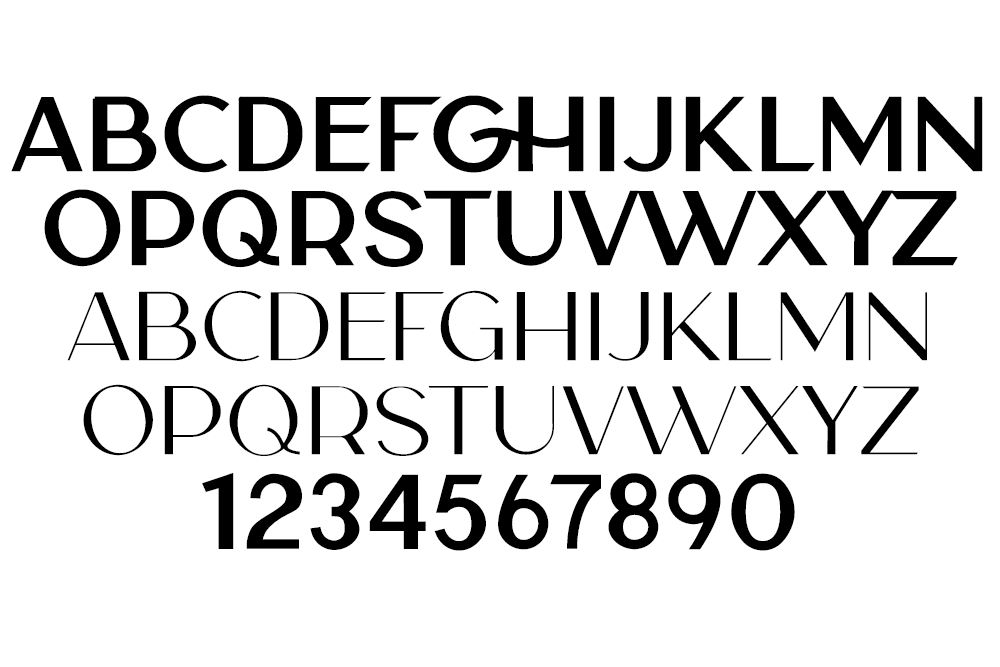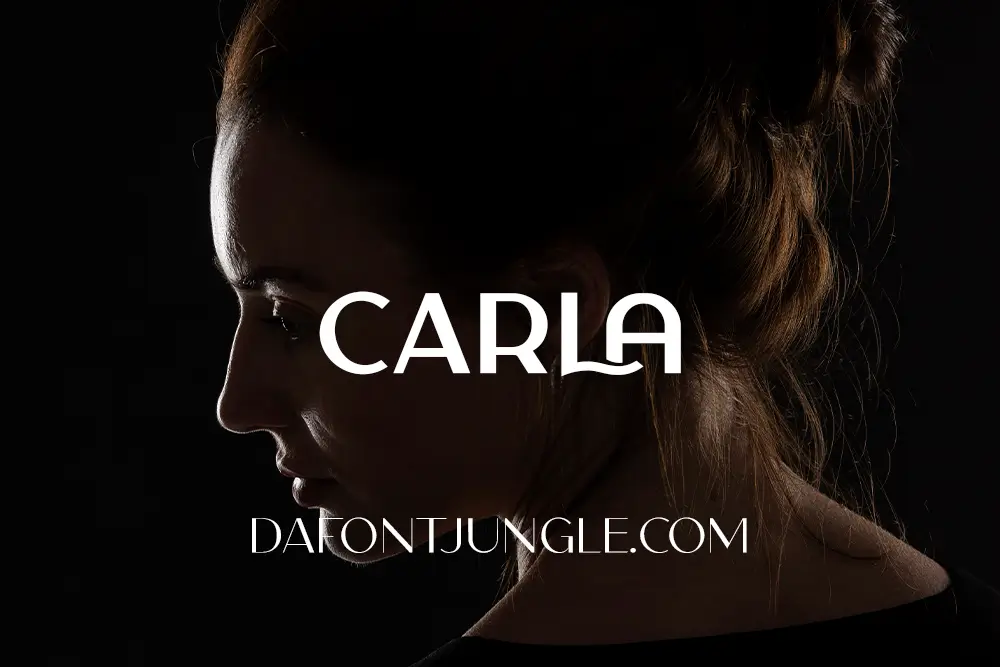
Carla – Clean and Elegant Sans-Serif Font
Carla Sans is a modern and minimalist font. It features clean lines, simple curves, and strong readability. The design works well for both large headlines and small text. It suits logos, magazines, fashion branding, and product packaging.
This font includes four weights, all caps, and support for many languages. You’ll also get ligatures, stylistic alternates, punctuation, and numerals. Carla Sans offers a refined style that looks great on both print and screen.